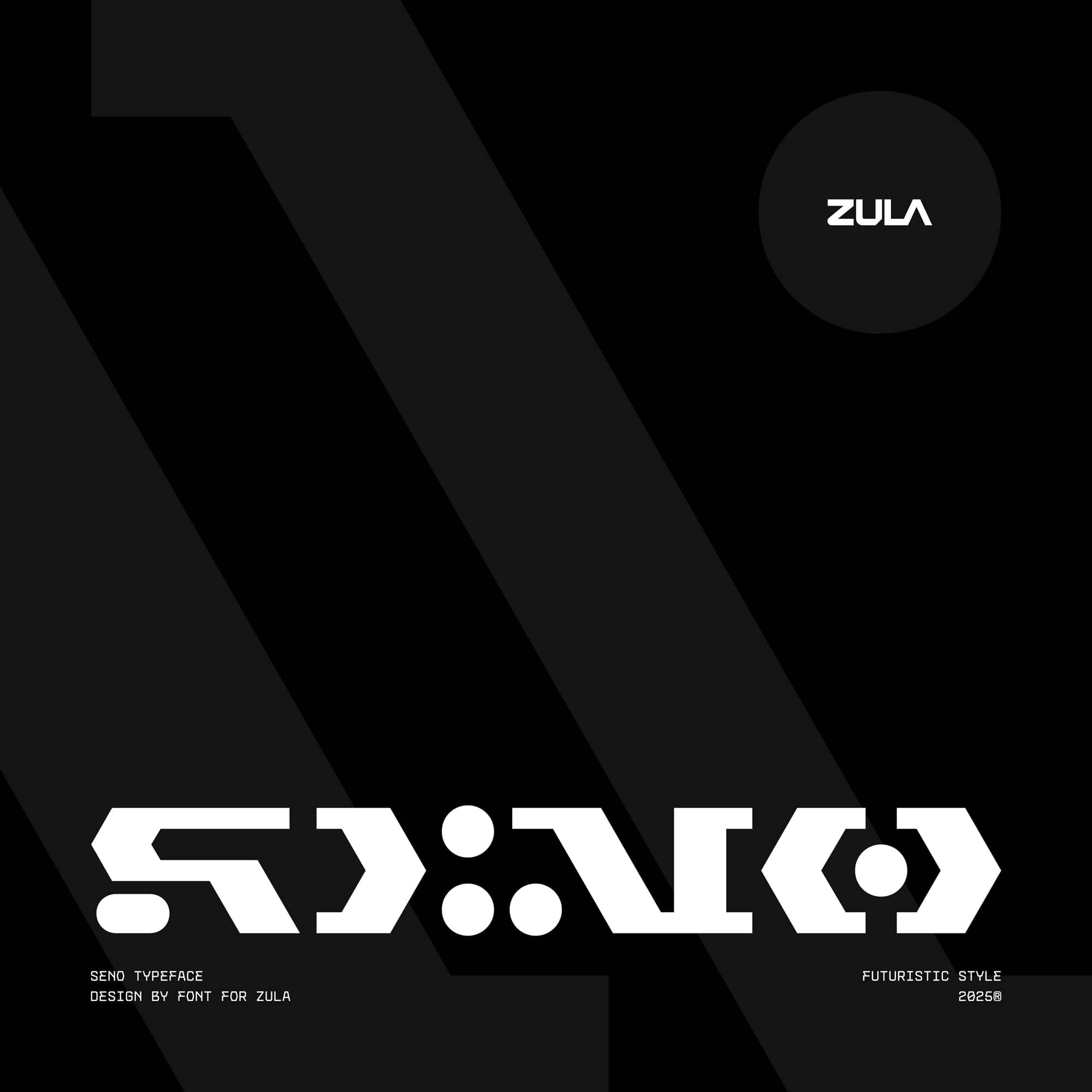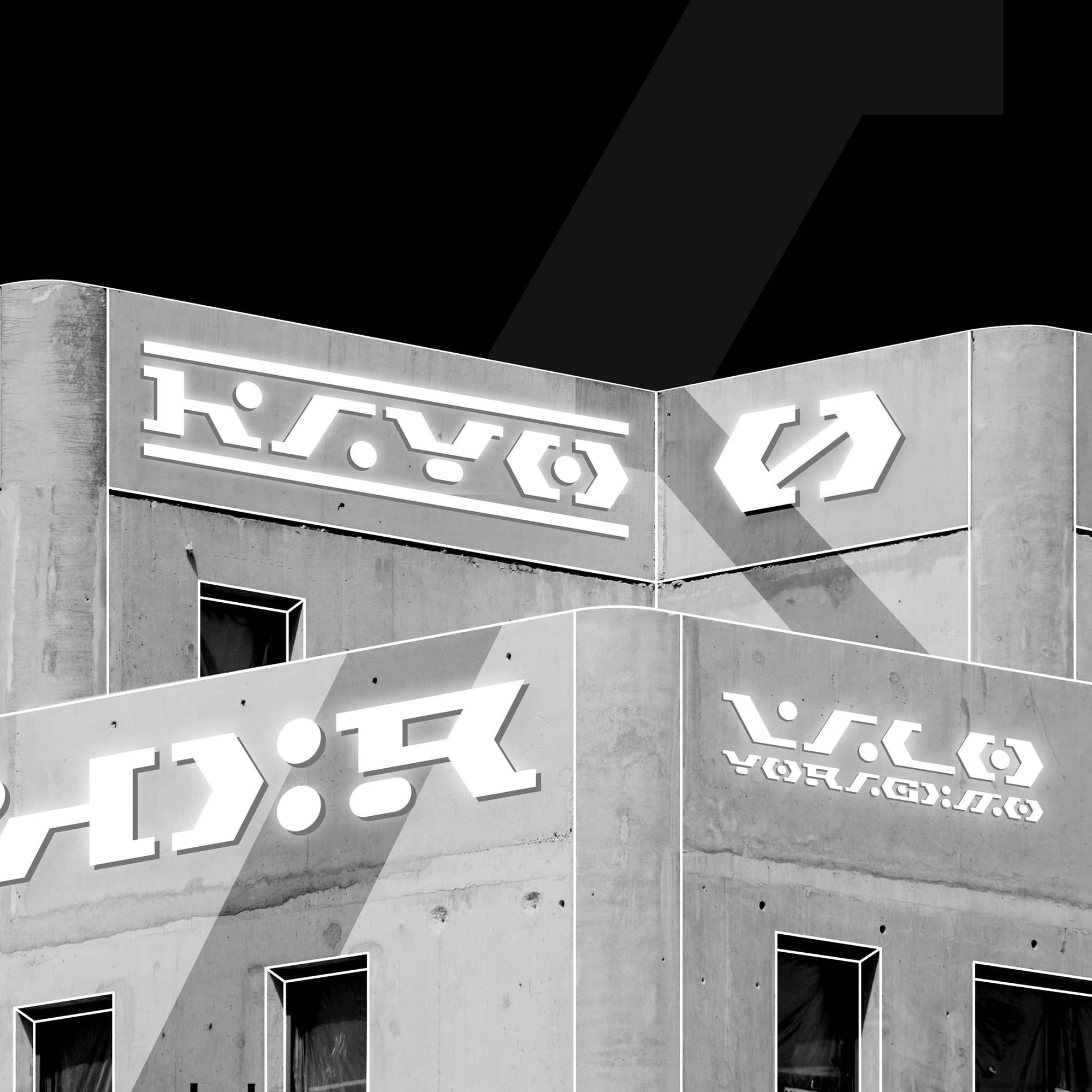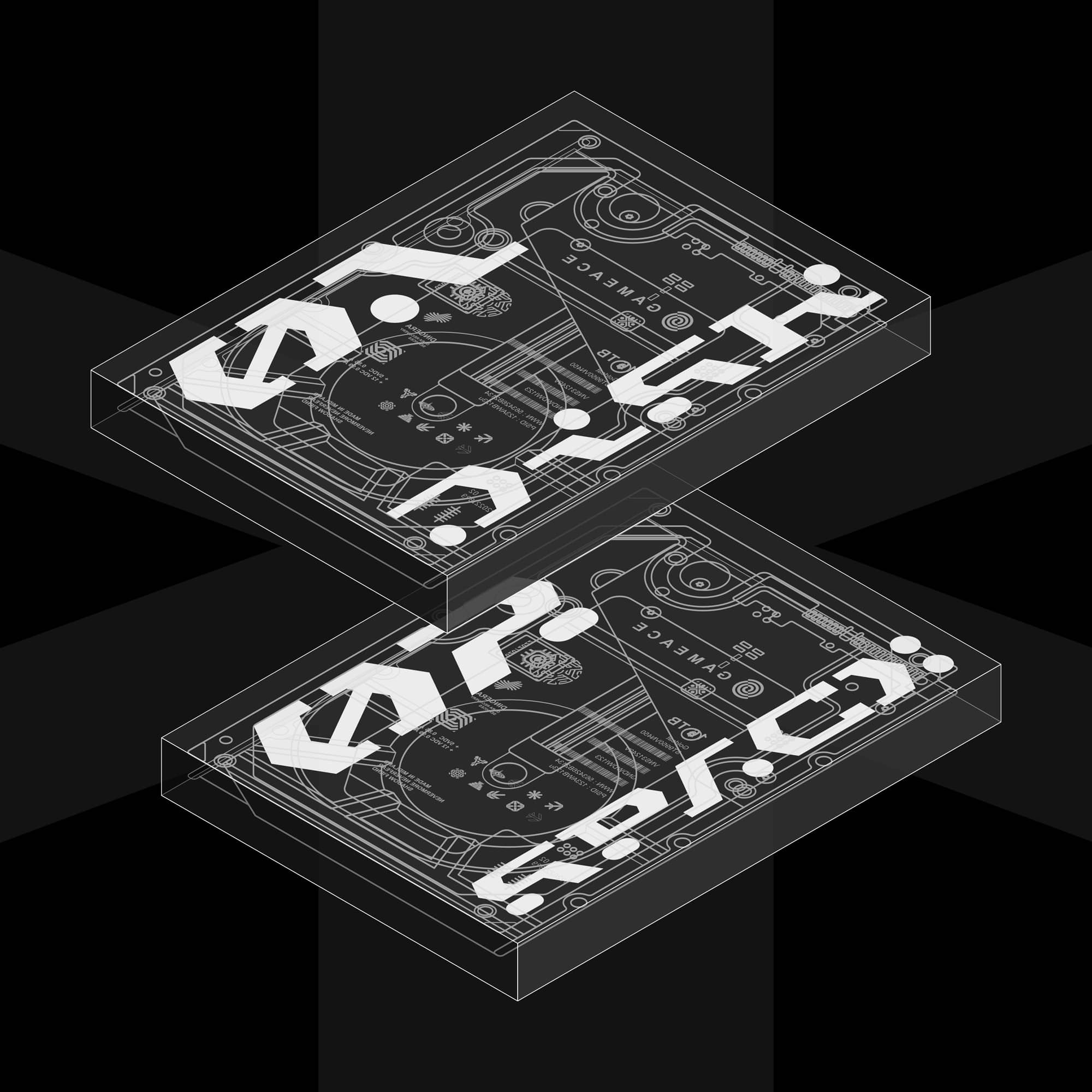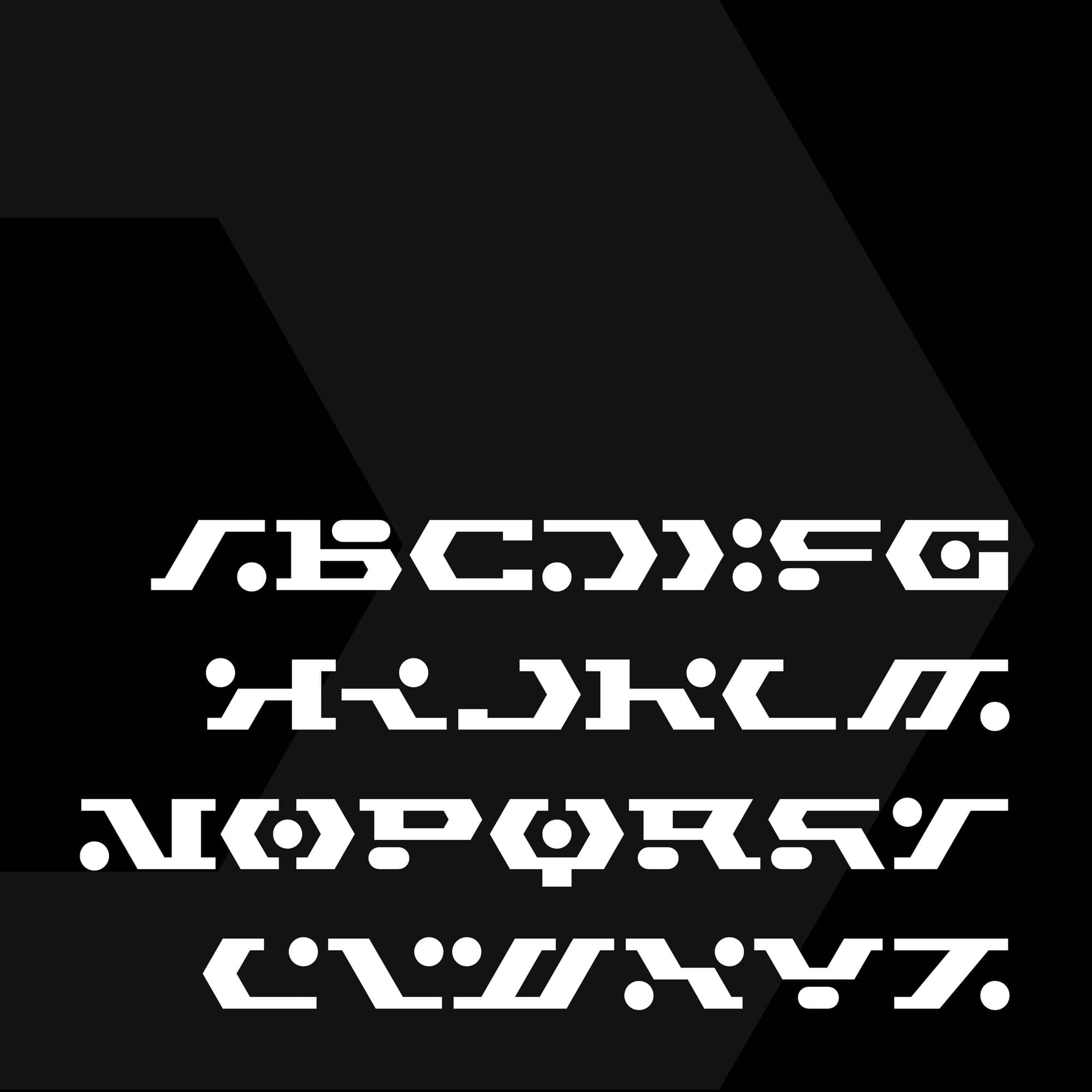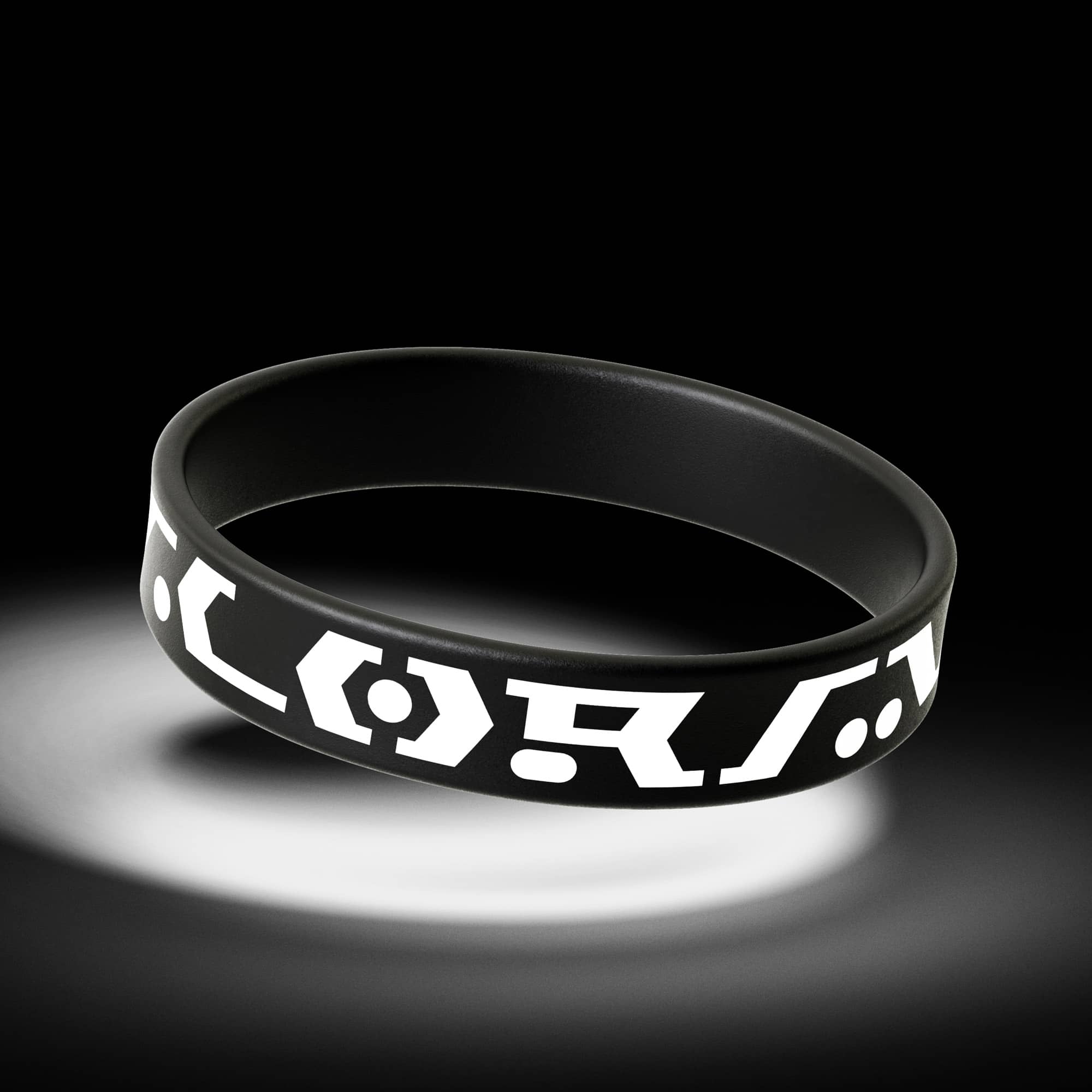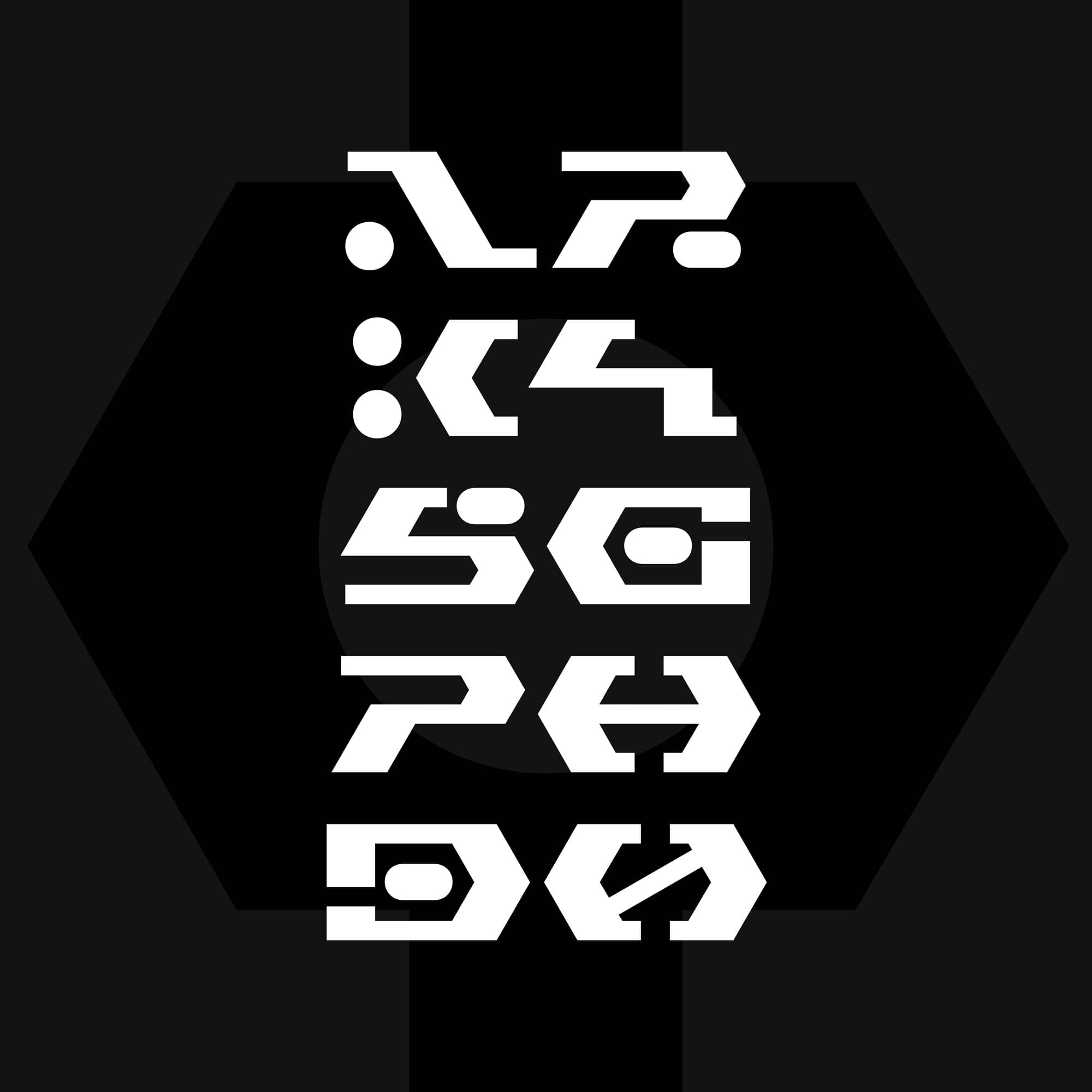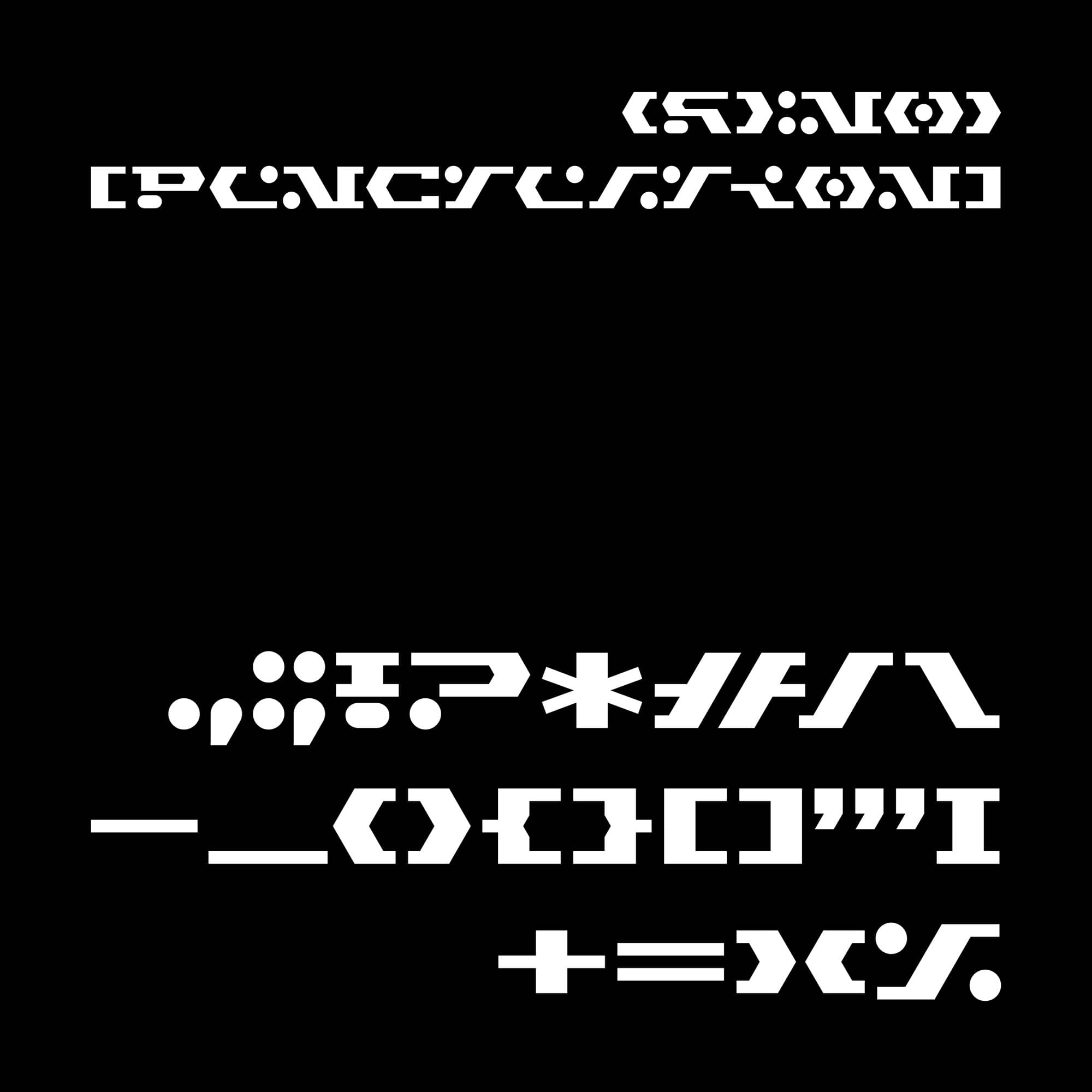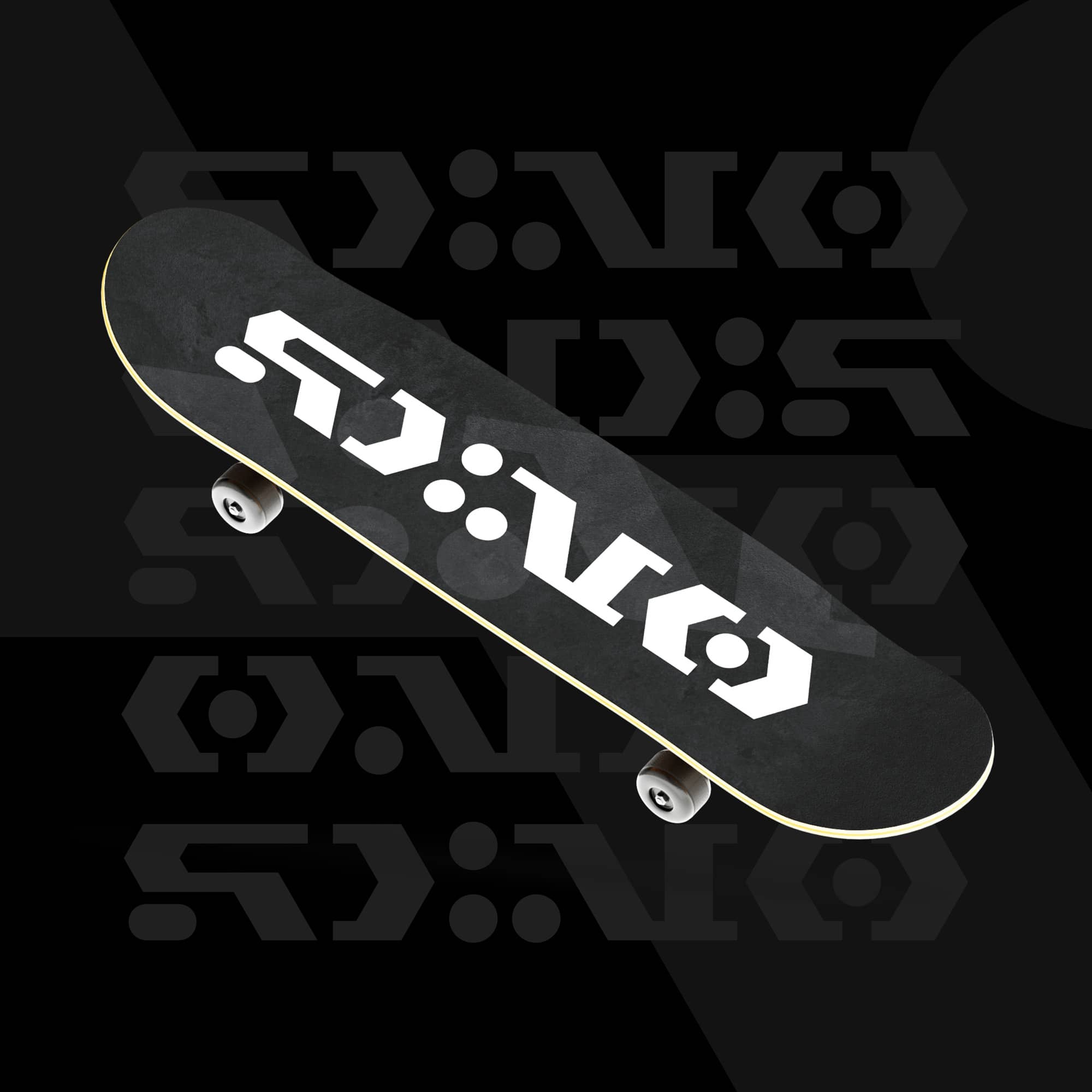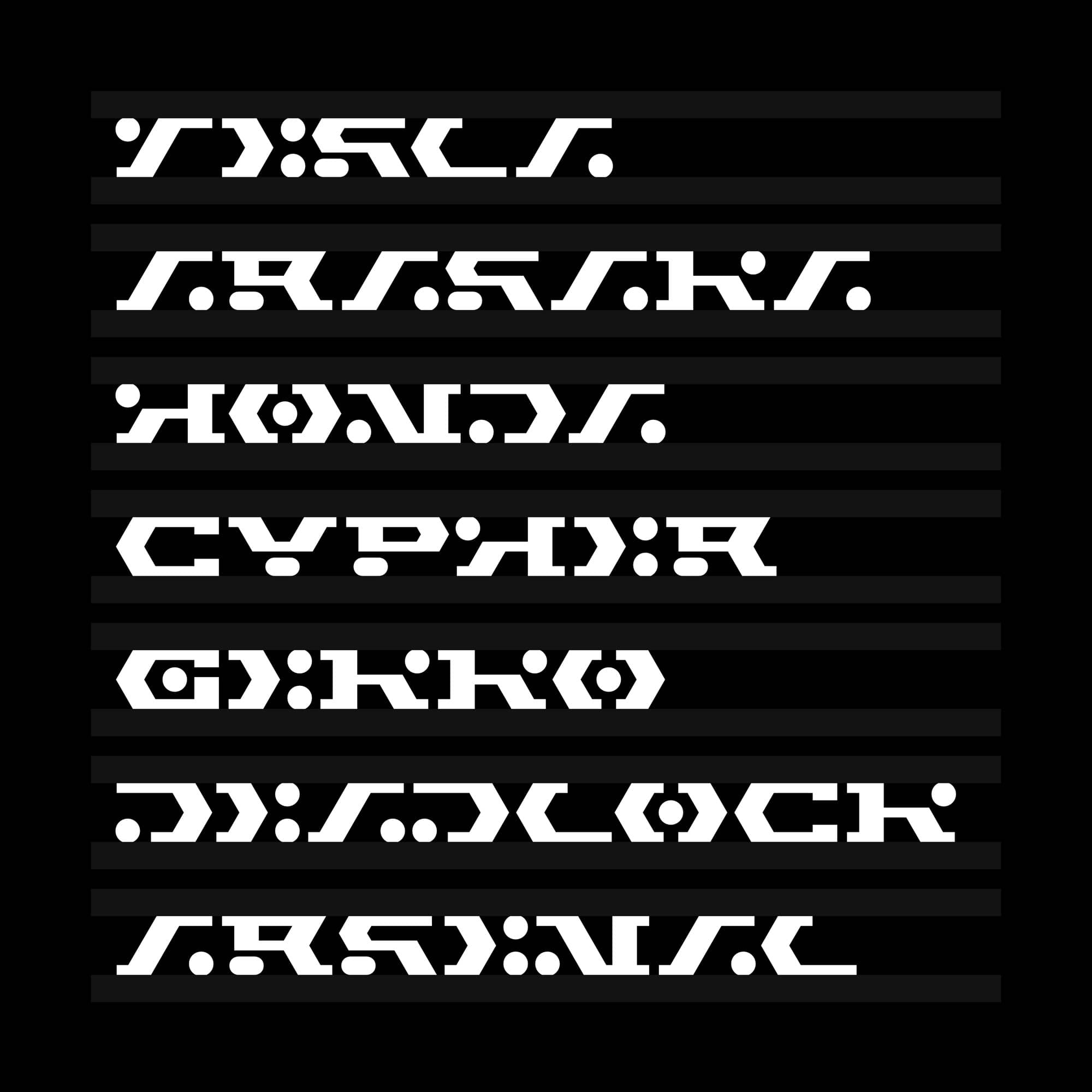
Seno
Seno is a modern typeface built from a framework of lines and dots, creating a clean yet futuristic letterform style. Its geometric structure and minimal details give it a bold, forward-thinking aesthetic that works effortlessly across digital and printed formats.